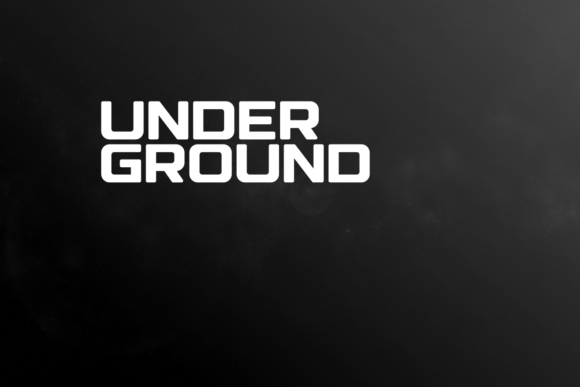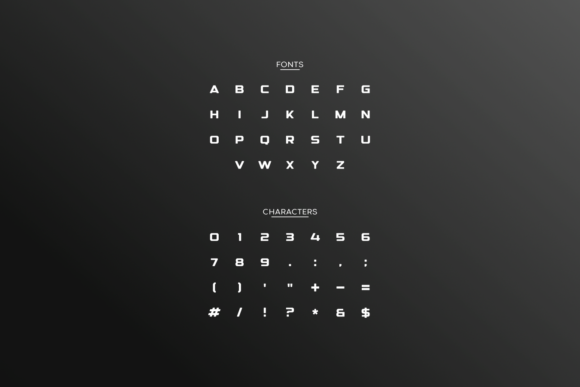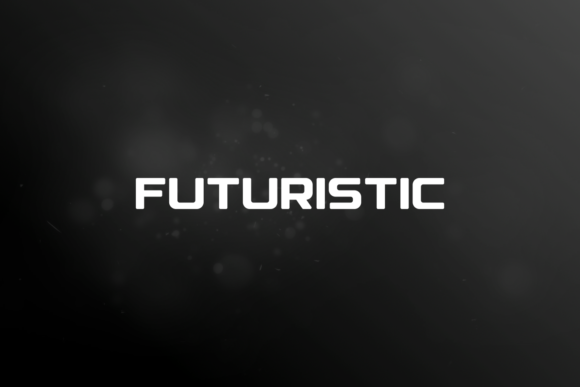
Introduction to Gregori Font
Gregori is a display font that combines science fiction style, modern and minimalist.
This typeface is available in all caps only It can be appropriate for many logos, headlines, and titles.
Key Features of Gregori Font